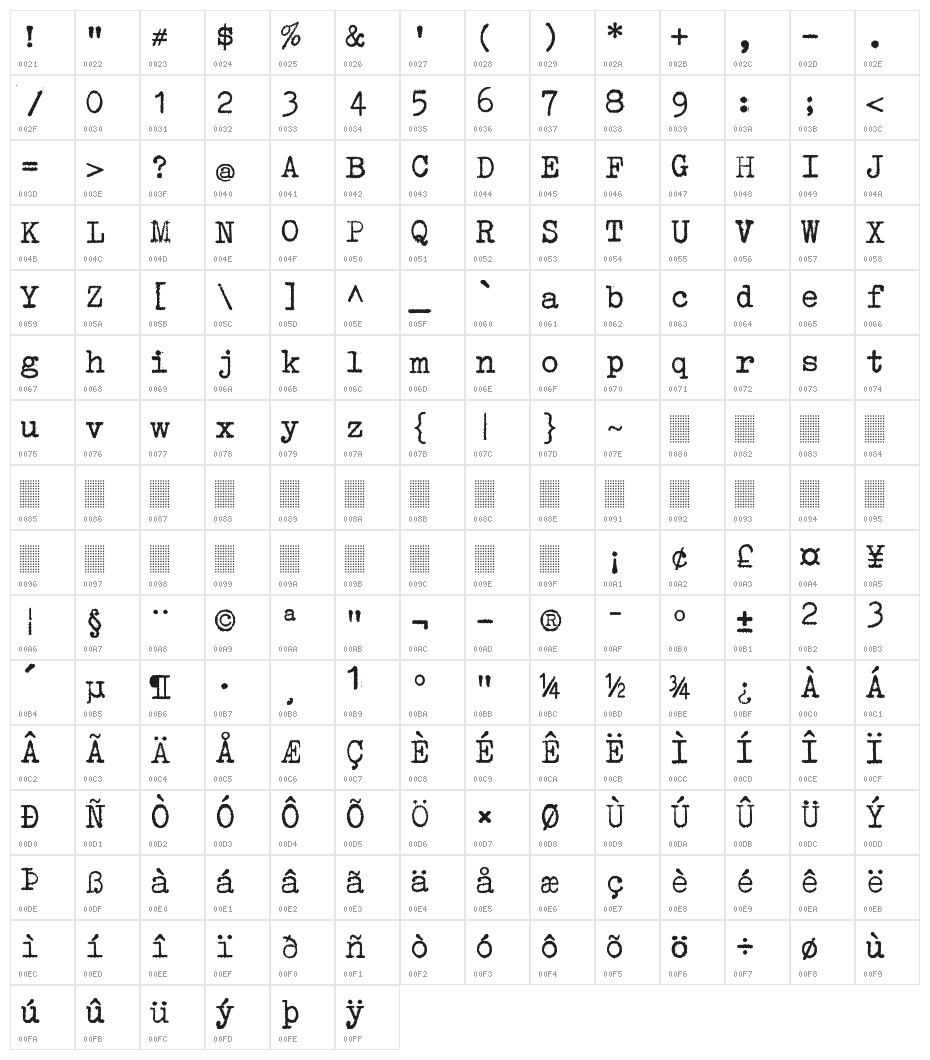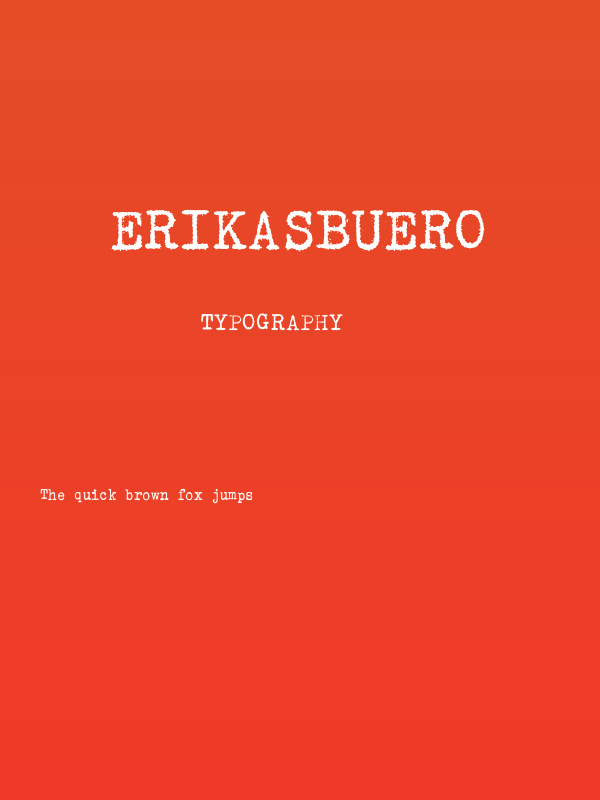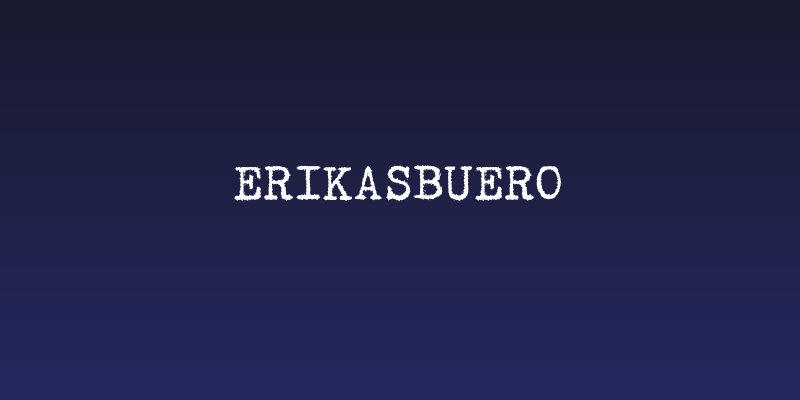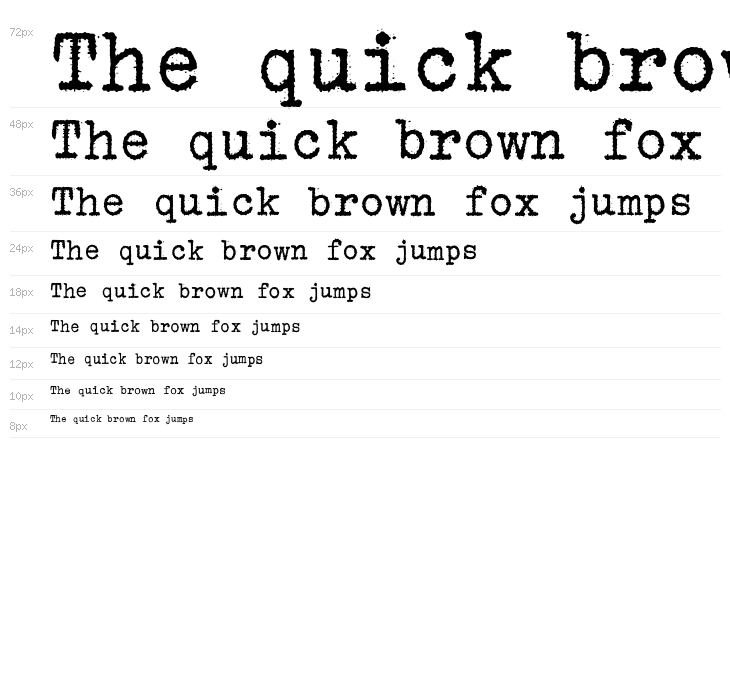
ErikasBuero Font
ErikasBuero Description
This typeface exudes a vintage, typewriter-inspired aesthetic, characterized by its distinct, uneven texture and slightly distressed appearance. Each character is imbued with a sense of nostalgia, reminiscent of old typewritten documents. The uppercase and lowercase letters maintain a consistent style, with rounded edges and a slightly rough texture that adds to its charm. The numerals and special characters follow suit, providing a cohesive look across all glyphs. This font's unique texture and style make it ideal for projects that aim to evoke a sense of history or authenticity.
Overall StyleVintage
Use CaseHeadlines, Logos, Decorative text
Proposed ProjectsIdeal for retro-themed designs, vintage posters, typewriter-style documents, and projects seeking a historical or nostalgic feel.